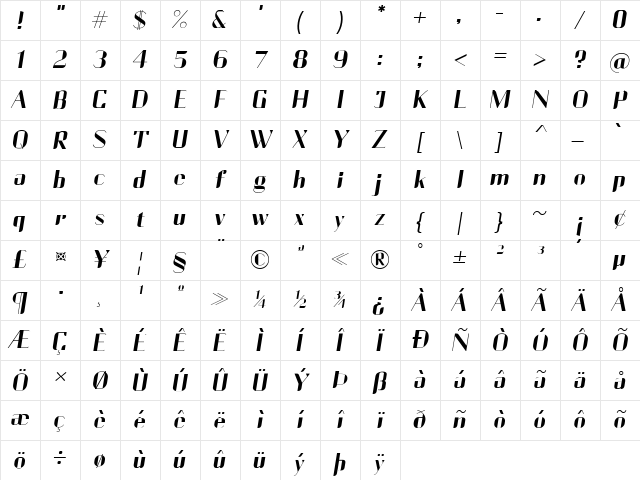
Complete Currency Slanted glyph index. Displaying only characters natively supported by Currency Slanted font.
Currency is a composed and adaptable typeface that performs quietly and consistently across a wide range of design contexts. The slanted form adds forward momentum and visual energy.
Pro Tip: Use Currency for emphasis, pull quotes, and subheadings where its slanted energy can add rhythm to the layout.